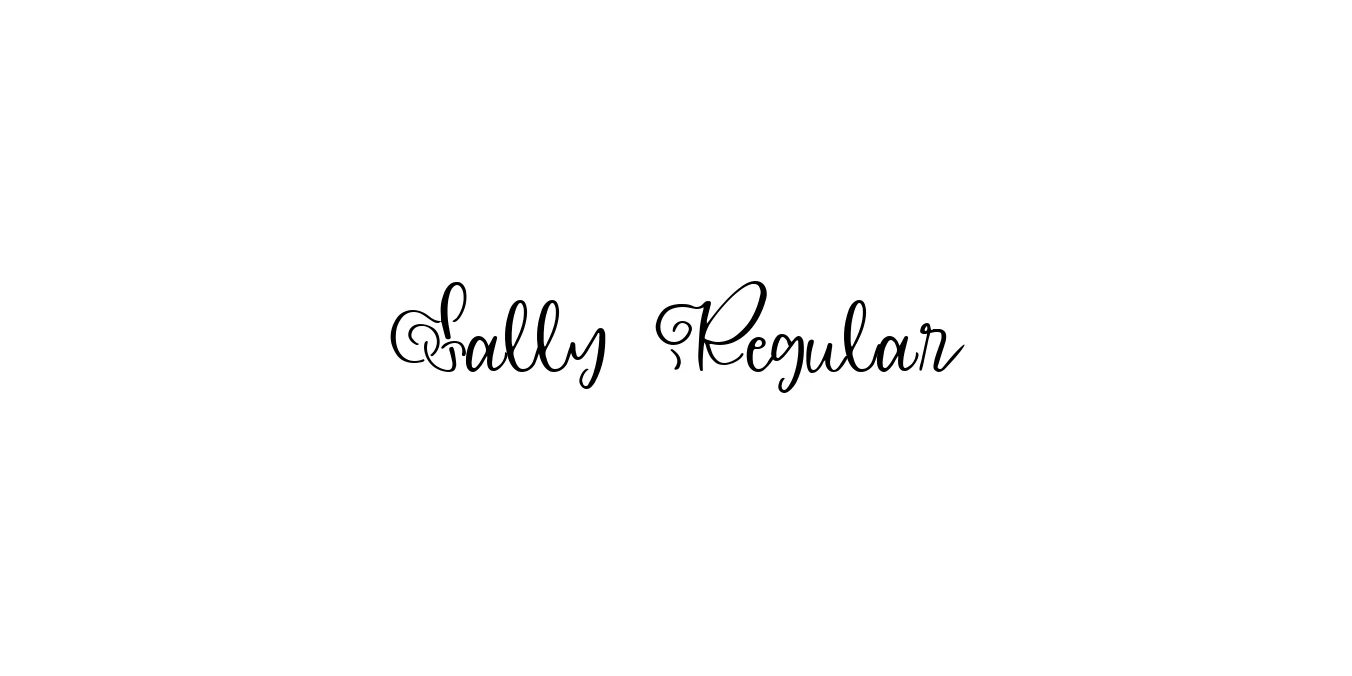
Sally Regular
Designed by Typejockeys
Sally Regular is a charming and approachable typeface designed to evoke a sense of warmth and clarity. Developed with a focus on humanistic qualities, it features open apertures and a balanced x-height that ensures excellent readability across various platforms. Its soft curves and clean terminals make it a versatile choice for designers looking to bridge the gap between classic elegance and modern simplicity.
Historically, the Sally family was crafted to provide a robust solution for both digital and print environments. Whether used in editorial layouts or branding projects, its distinctive personality shines through without overpowering the content. The typeface is particularly favored for its friendly demeanor, making it an ideal companion for lifestyle brands, creative storytelling, and boutique advertising.
Sally Regular Best Uses
Engaging posts, Instagram stories, and influencer content.
Logo design for lifestyle, beauty, and wellness brands.
Elegant wedding invitations and personalized greeting cards.
Artisanal product labels and boutique shopping bags.